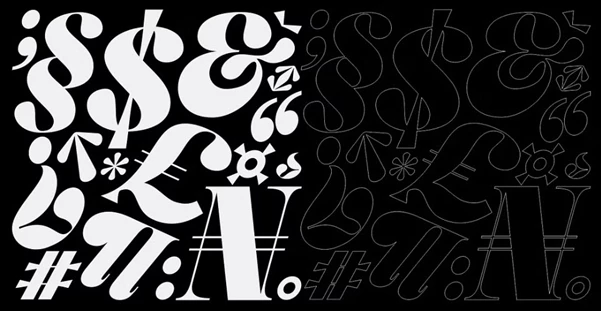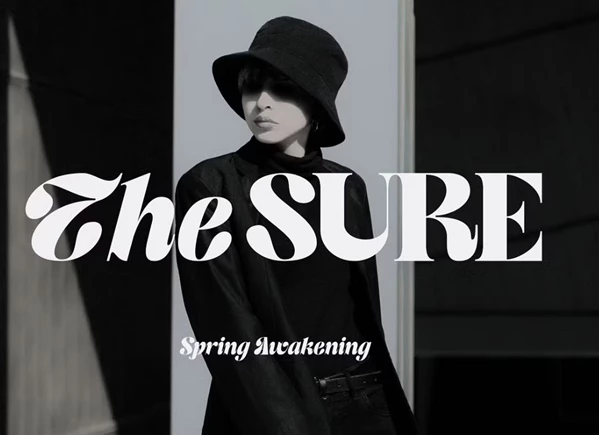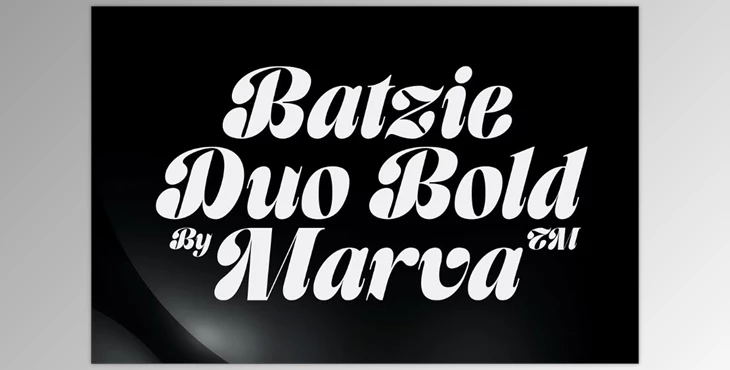
Batzie - Serif Display Font:
The Batzie Serif Display Font is an elegant, modern typeface that lends itself to feminine and soft projects requiring a sense of elevated style. This font boasts letterforms that flow from one to another with gentle, but intentional curves and connections, similar to an authentic handwritten note. The stroke weight is average across the board, affording the end user effortless readability and comprehension. The characters, however, have been crafted with such attention to detail that elegant strokes and whimsical notions have been added while still keeping the font relatively simple. The rhythm within Batzie represents a natural flow as evidenced through soft, round shapes in the body of the letters and extended ascenders and descenders that create an elevated, airy aesthetic. The italic version adds even more elegance with a dynamic push to each letter forward with a slight incline, giving a sense of motion, style, and expressiveness. Batzie would be an excellent option for beauty, lifestyle, or fashion branding; wedding invitations; feminine-based packaging; and quotes that require a touch of elegance.